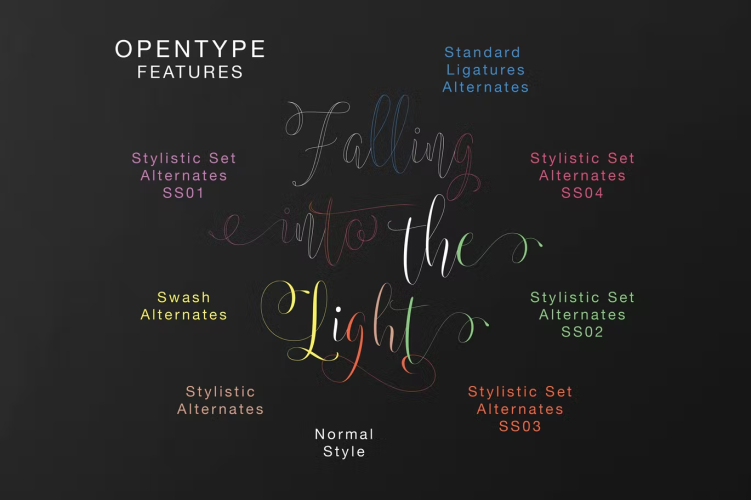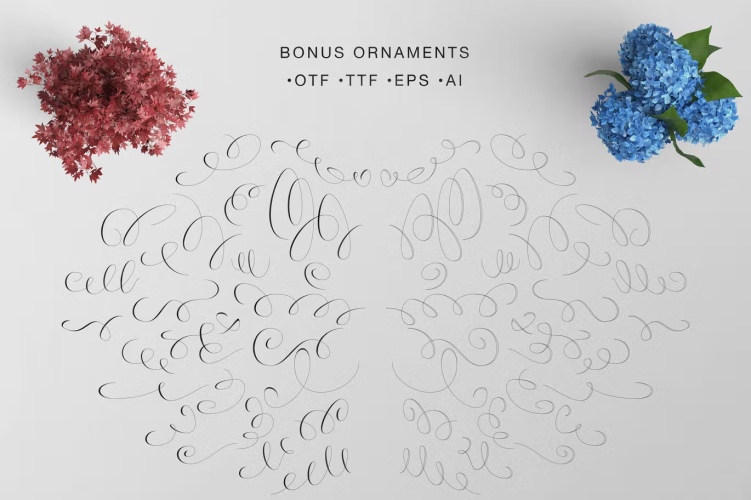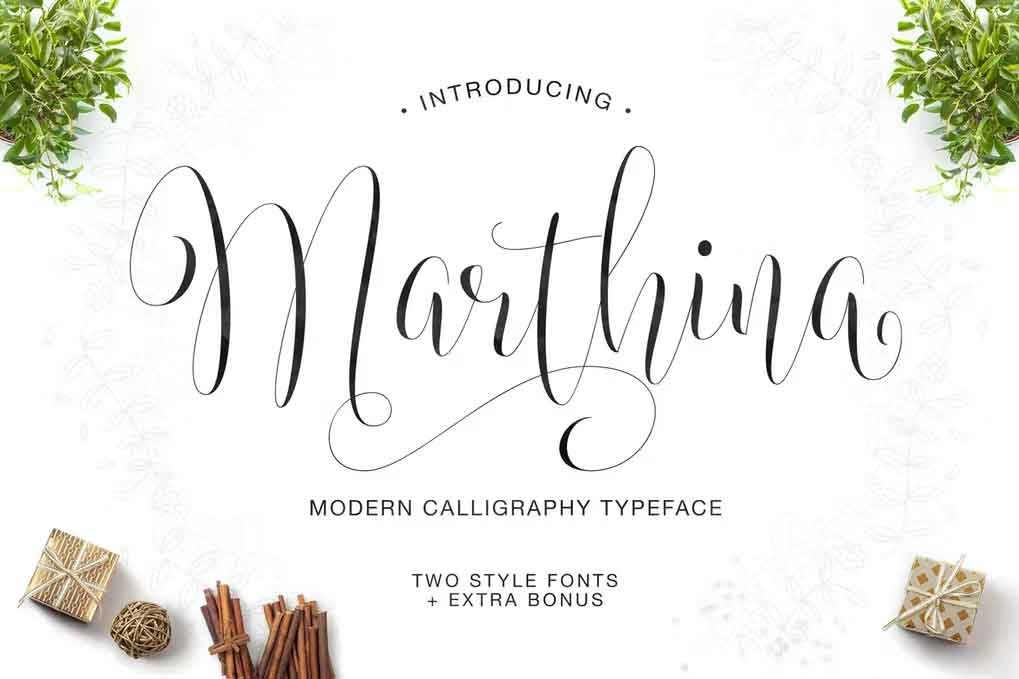
Marthina Script Two Style Font
Introducing Marthina Script Two Style
Marthina Script Two Style is a new Modern Calligraphy Typeface Fonts collection from Ianmikraz studio, combines from copperplate to contemporary typeface, classic, beauty and elegant touch.
Marthina Script Two Style features 377 glyphs and 152 alternate character contain with opentype features and has given PUA unicode (specially coded fonts), with tons of alternate characters. . Stylistic Alternates, Standart Ligature and more.You can access all those alternate characters by using OpenType savvy programs such as Adobe Illustrator, Adobe InDesign and CorelDraw X6-X7.
Marthina Script Two Style is suitable for Apparel Brand, any greeting cards, Painting design style, or any design that needs natural and personal touch. Mix and match the alternate characters to add an attractive message to your design.
Marthina Script Two Style Font is a Script And Handwritten font that brings a professional and versatile look to your projects. Introducing Marthina Script Two Style is a new Modern Calligraphy Typeface Fonts collection from Ianmikraz studio, combines from copperplate to contemporary typeface, classic, beauty and elegant.